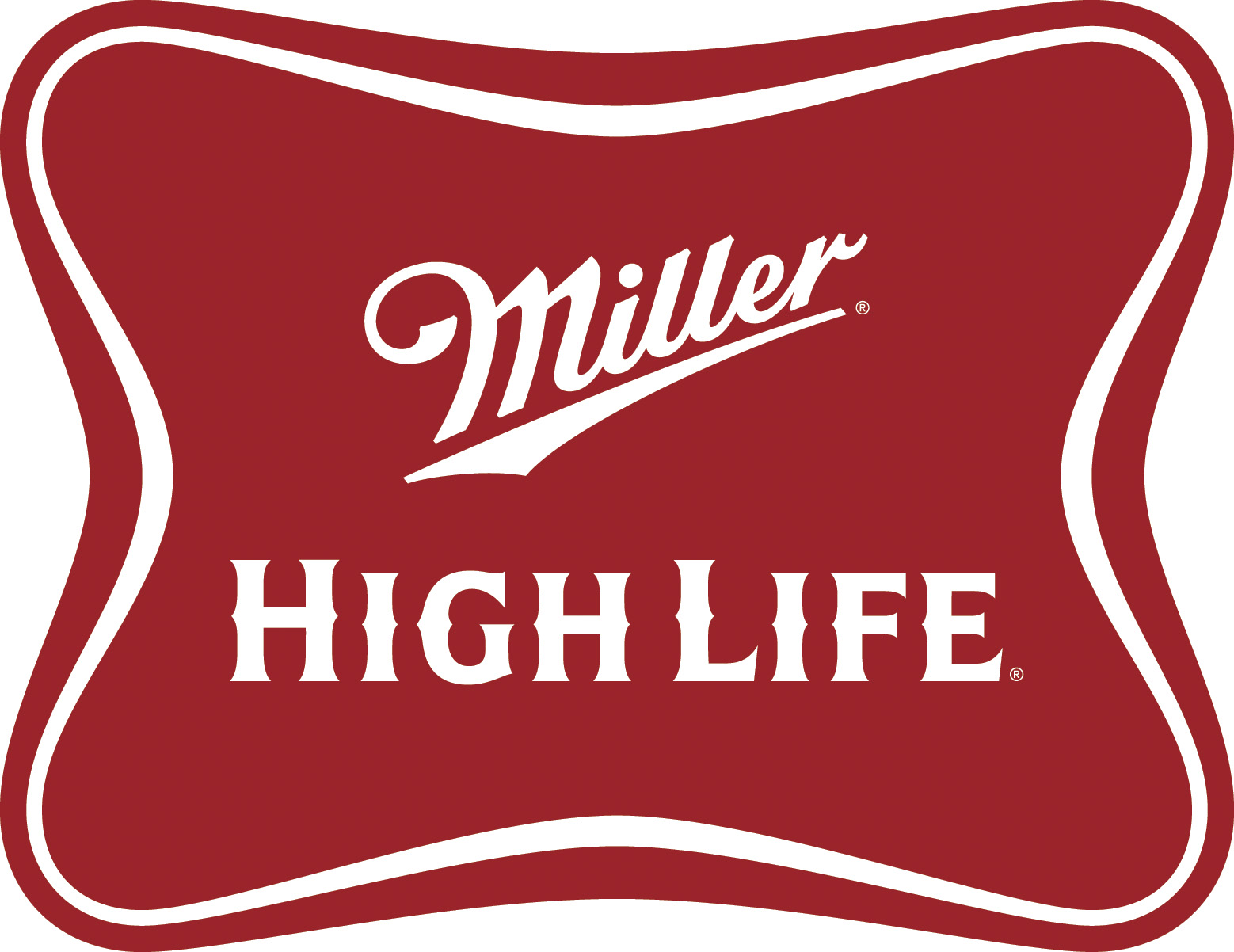
Miller Beer Font
Miller Beer Font - For 'miller' draft beer is a bold script suitable for logos, letterheads & headlines and was inspired by the lettering used by miller. Draft beer by fontmesa is a font based on the miller beer logo.